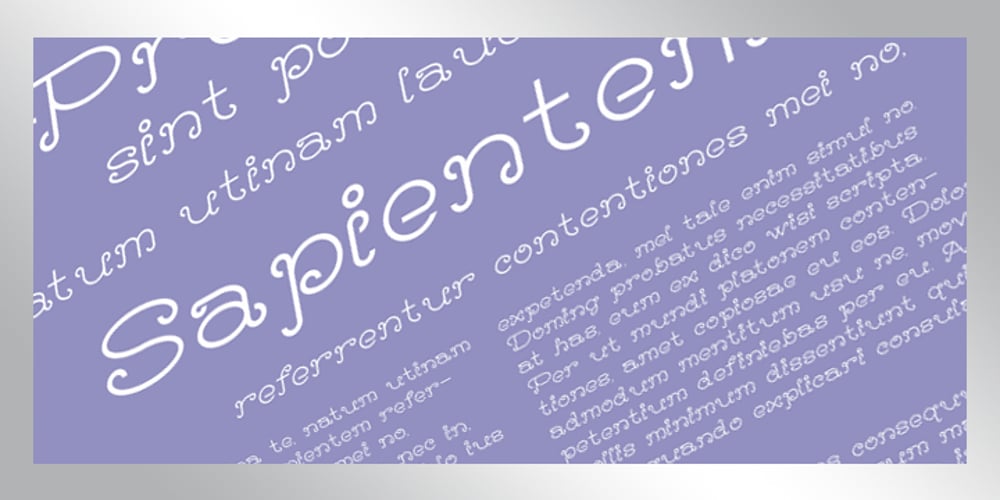
Sayonachi Font Family was designed by Ronnie Dela Cruz and published by ActiveSphere. Sayonachi contains 2 styles and family package options. Sayonachi is a fun, curly font to use in a wide range of documents, and works best in display applications, such as posters, greeting cards, awards, invitations, logos and titles. Sayonachi font has a full upper and lower-case, accents, punctuation and a selection of monetary symbols. Currently Available for Mac and PC, in Open Type, PostScript or TrueType.